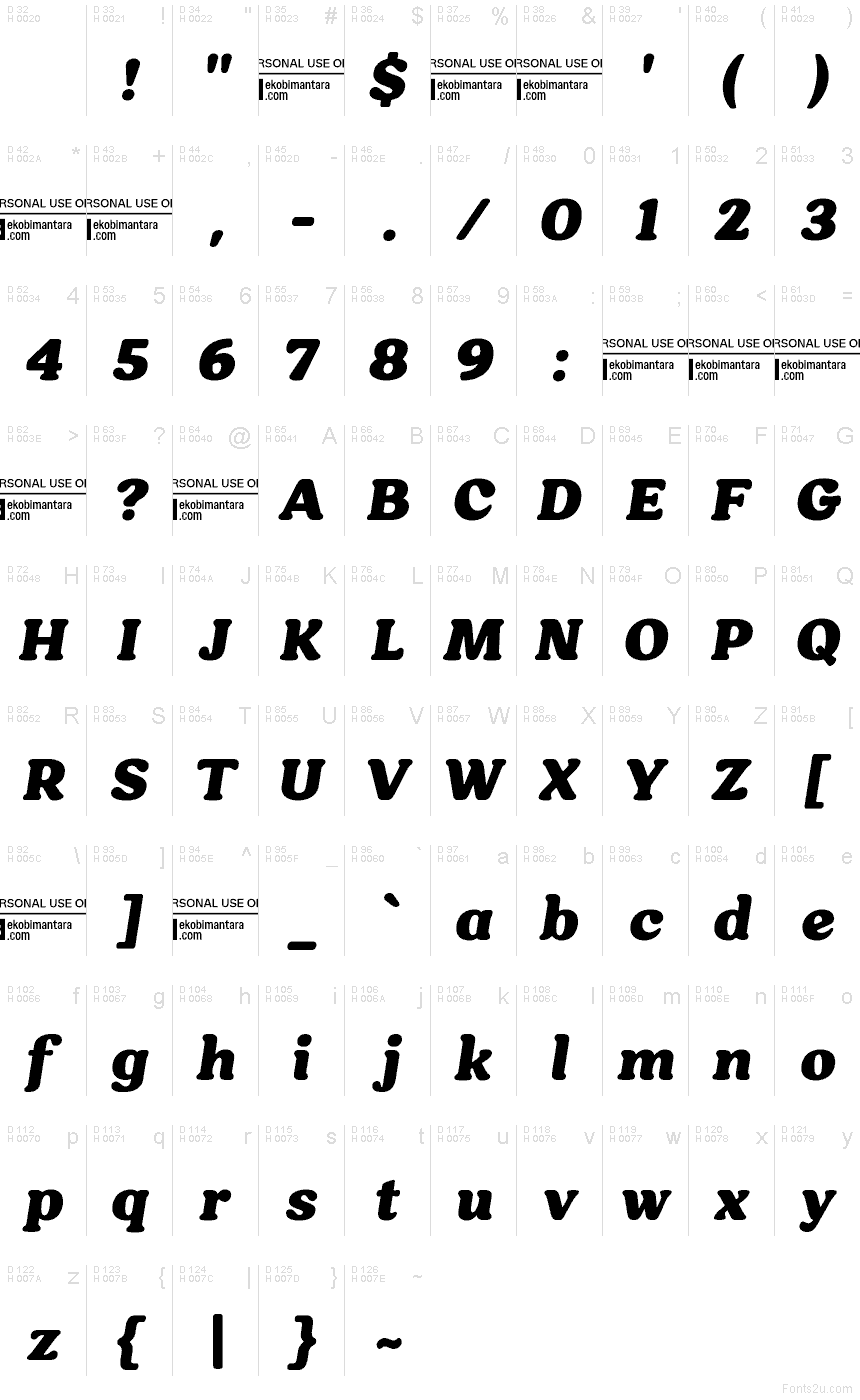
Hornbill Trial Black Italic
Hornbill Black Italic font by Eko Bimantara is a free black italic retro display font. Built within the Hornbill family, it leans forward with confident heft—thick, inky strokes that swell into soft wedge serifs and smooth teardrop endings. The italic angle adds momentum, turning simple words into statements, while the tight rhythm and rounded weight feel tactile, almost pressed into paper.
Using Hornbill Black Italic, headlines snap into focus without shouting. It shines on posters, vintage logos, beverage labels, album covers, packaging, and editorial pull quotes. This free font loves big sizes and generous margins; try slight negative tracking for extra punch. Pair with a clean grotesk sans for body copy to keep the retro warmth balanced and readable.